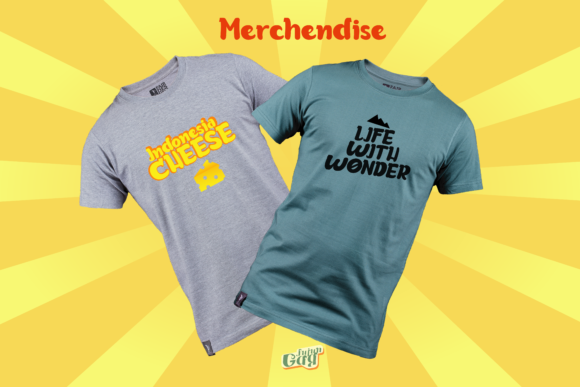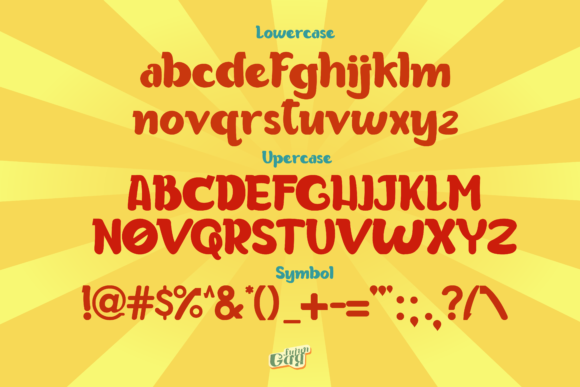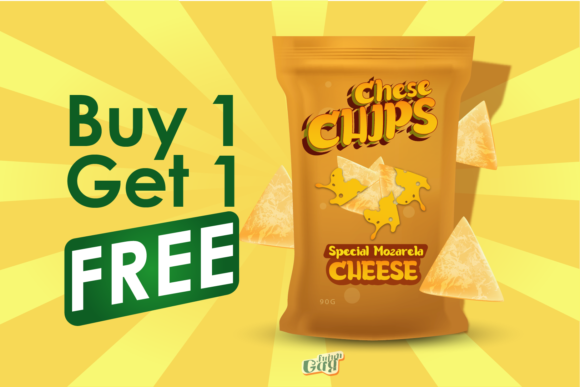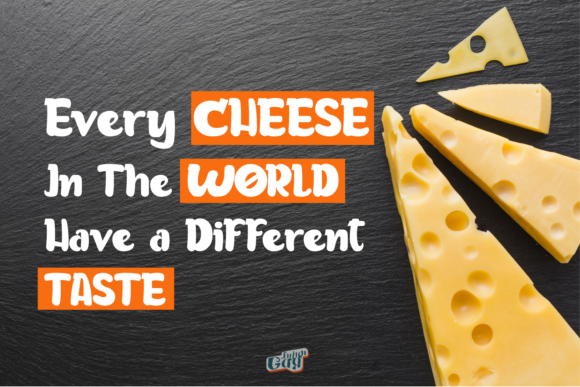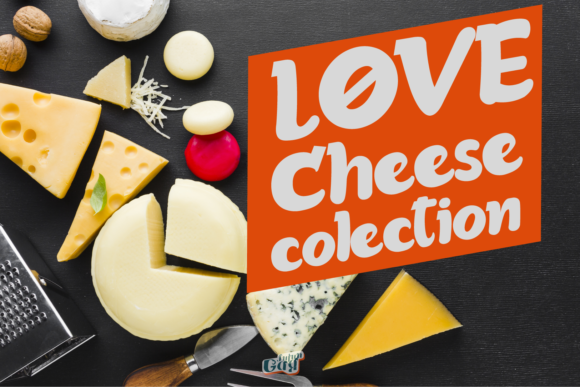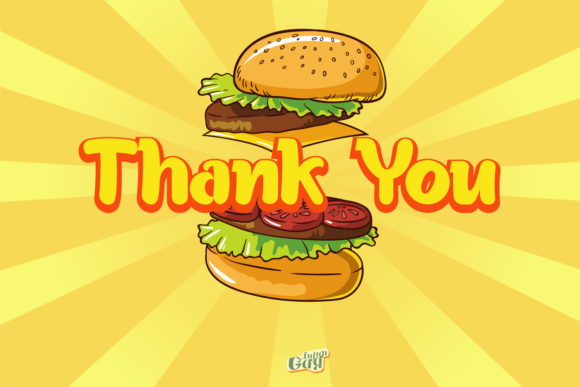
Introducing Cheeseburger Font: The Deliciously Charming Display Font
Are you looking for a font that can add a touch of whimsy and charm to your design projects? Look no further than Cheeseburger Font! This deliciously charming display font is sure to make any design stand out with its cute vibe and playful personality.
What is Cheeseburger Font?
Cheeseburger Font is a display font designed to bring a smile to your face. Its unique and quirky design makes it perfect for adding a touch of fun and personality to any design project. Whether you’re working on a logo, poster, or social media graphic, Cheeseburger Font is sure to make your design pop.
Key Features of Cheeseburger Font
- Cute and Playful Design: Cheeseburger Font features a unique and adorable design that’s sure to capture the attention of your audience.
- Display Font: This font is specifically designed for display purposes, making it perfect for headlines, titles, and other prominent text elements.
- Easy to Read: Despite its playful design, Cheeseburger Font is easy to read and understand, making it perfect for use in a variety of design projects.
- Versatile: Cheeseburger Font can be used in a wide range of design projects, from logos and posters to social media graphics and more.
Who is Cheeseburger Font for?
Cheeseburger Font is perfect for designers, crafters, and anyone looking to add a touch of whimsy and charm to their design projects. This font is ideal for:
- Graphic Designers: Add a touch of personality to your designs with Cheeseburger Font.
- Crafters: Use Cheeseburger Font to add a playful touch to your DIY projects, such as signs, banners, and more.
- Small Business Owners: Stand out from the competition with Cheeseburger Font’s unique and eye-catching design.
How to Use Cheeseburger Font
- Pair it with Other Fonts: Pair Cheeseburger Font with other fonts to create a unique and visually appealing design.
- Use it in a Variety of Projects: Don’t be afraid to get creative and use Cheeseburger Font in a variety of design projects.
Why Choose Cheeseburger Font?
So why choose Cheeseburger Font over other display fonts? Here are just a few reasons:
- Unique Design: Cheeseburger Font features a unique and adorable design that’s sure to stand out.
| Font Name | Cheeseburger Font |
| Author | Nerdstudio |
If you’re looking for a font that can add a touch of whimsy and charm to your design projects, look no further than Cheeseburger Font. This deliciously charming display font is sure to make any design stand out with its cute vibe and playful personality. With its unique design, ease of use, and affordability, Cheeseburger Font is the perfect choice for designers and crafters of all skill levels.